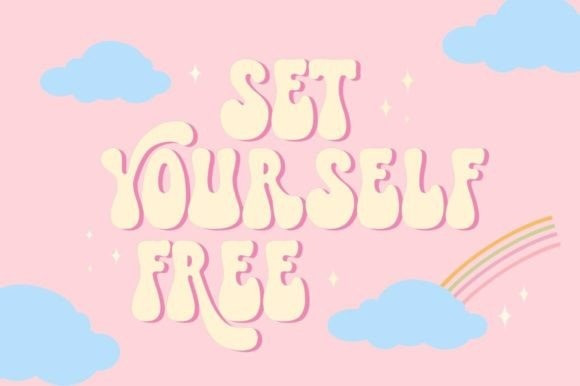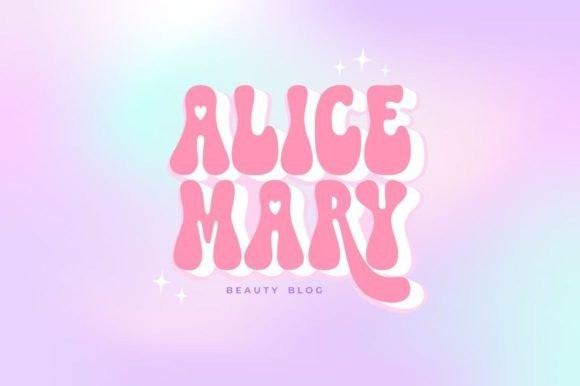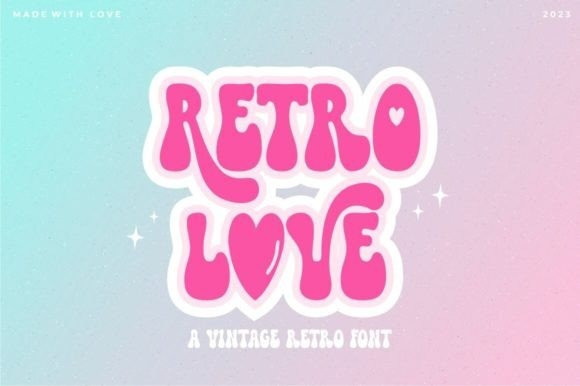
Retro Love Display Font
Retro Love Display Font is a groovy display font that takes a vibrant trip down memory lane. Its playful letterforms and dynamic curves capture the essence of the psychedelic era, exuding a fun and nostalgic energy. Ideal for projects that seek a funky and retro-chic vibe, Retro Love adds a nostalgic groove to your designs.